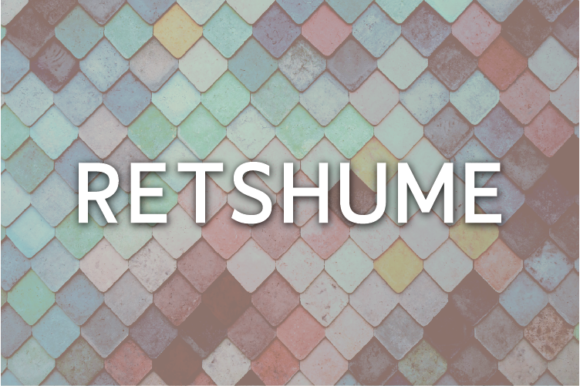
**Introducing Retshume: The Epitome of Professionalism for Captivating Corporate Emails**
In the realm of digital communication, first impressions hold immense sway. As the gateway to building rapport and establishing credibility, your corporate emails serve as a powerful touchpoint that can either elevate or diminish your brand's reputation. To ensure that every electronic message you send exudes professionalism and makes a lasting impact, we present to you Retshume – the font that will transform your emails into works of art.
Retshume, meticulously crafted by the renowned font designer A Christie, is a modern sans-serif typeface that embodies elegance, clarity, and sophistication. Its minimalist and neat design ensures effortless readability, allowing your words to flow seamlessly and convey your message with unmatched impact. Whether it's a formal correspondence, a thought-provoking proposal, or a delicate client update, Retshume empowers you to communicate with confidence and style.
Beyond its visual appeal, Retshume possesses an inherent versatility that adapts effortlessly to a wide array of corporate settings. Its understated yet striking presence seamlessly complements both traditional and contemporary branding styles, making it the perfect choice for companies of all sizes and industries. From financial institutions to tech startups, Retshume's adaptability knows no bounds, allowing you to craft emails that resonate with your target audience and leave an unforgettable impression.
**Unleash the Power of Retshume and Witness Your Emails Transcend the Ordinary**
* **Command Attention:** Retshume's clean lines and bold presence captivate readers from the very first glance, ensuring that your emails stand out amidst the digital clutter.
* **Convey Clarity and Precision:** The meticulous design of Retshume enhances readability, ensuring that your messages are effortlessly understood and your ideas are communicated with crystal-clear precision.
* **Inspire Confidence and Trust:** The professional and sophisticated aura of Retshume instills confidence in your audience, fostering a sense of trust and credibility that is essential for successful business relationships.
* **Make a Lasting Impression:** Emails crafted with Retshume leave a lasting impact, creating a positive and memorable experience for your recipients that transcends the confines of their inbox.
**Elevate Your Brand's Image with Every Email**
In today's competitive business landscape, it's the subtle details that often make all the difference. By incorporating Retshume into your corporate emails, you're not simply sending messages – you're making a statement about your brand's professionalism, your attention to detail, and your commitment to excellence.
Imagine the positive impact Retshume can have on your email campaigns. Imagine emails that open doors, close deals, and forge lasting connections – all thanks to a font that perfectly captures your brand's essence and conveys your message with unwavering clarity and impact.
Join the ranks of discerning professionals who have discovered the power of Retshume – the font that will revolutionize your corporate emails and elevate your brand's image to new heights.